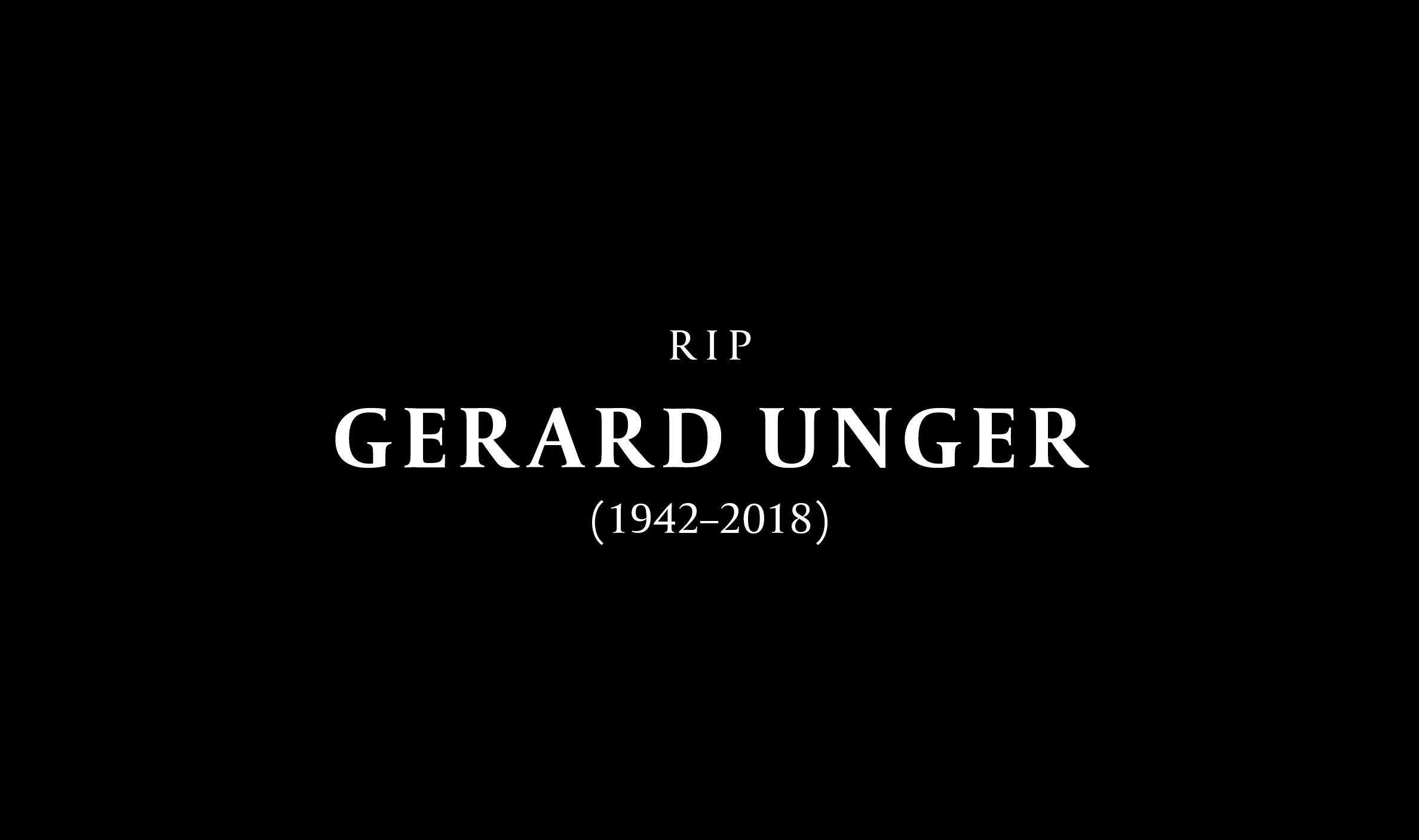
RIP Gerard Unger
Teacher. Mentor. Colleague. Friend.
On Friday, November 23, 2018 Gerard Unger passed away at the age of 76 years. Gerard was a type legend — one of the few great masters in typography whose influence reaches well beyond his remarkable and distinctive type design work. His legacy will live on in his insightful writings and in the way his teaching and colourful personality marked the lives of hundreds of students and professionals. We at TypeTogether are deeply honoured that Gerard trusted us to publish four of his more recent type families. He was a mentor who always encouraged us to do more and do better, a dear friend, an inspirational colleague full of life and fascinating anecdotes, and above all a wonderful and generous human being.
We will miss you terribly, Gerard!